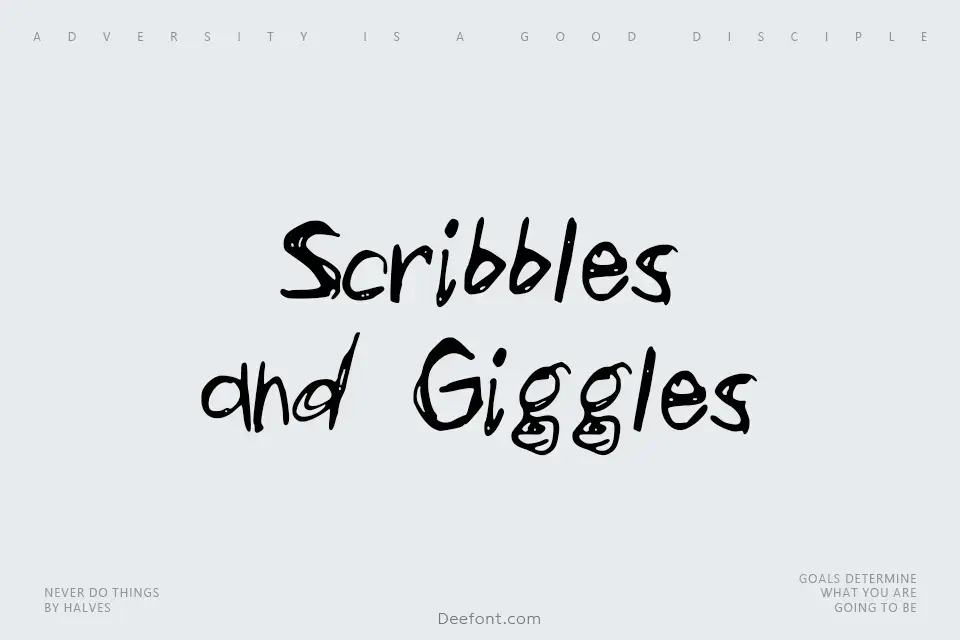
Scribbles and Giggles Font
Scribbles and Giggles is a scratchy, scribbled script font with jagged strokes, uneven baseline and chaotic texture. Perfect for horror movie titles, Halloween posters, edgy logos, spooky packaging, party invitations and any design that needs raw, unsettling energy with distressed, childlike handwriting vibes.****This font is free for personal use, but please contact me for anything other than personal use.****This font costs $20 for any sort of commercial use. Please email me for details – kelseyann49@gmail.com
Designed by:Kelsey Ann G